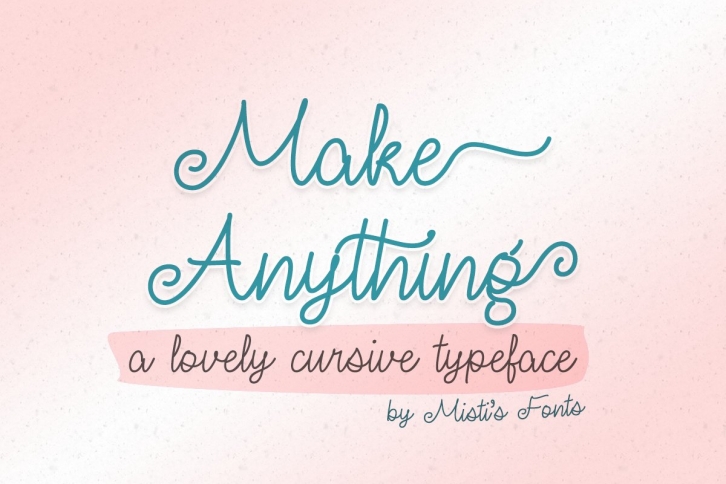
Make Anything is a beautiful font that was designed by Misti Fonts. It's a great choice for designers and creatives who need such a font. It was released on May 7, 2020 and the file size is 14.19 MB. Make Anything may give a more youthful, expressive and casual look to your project. It is a very beautiful, refined, elegant, and high-quality font.